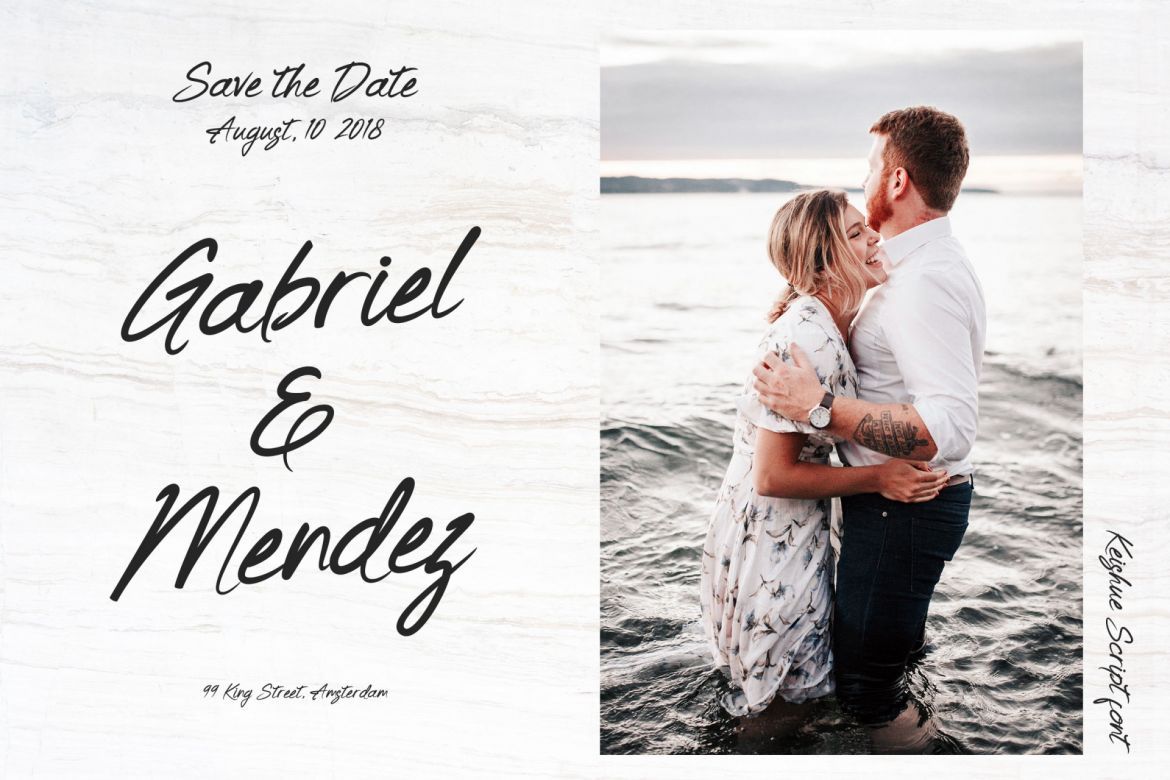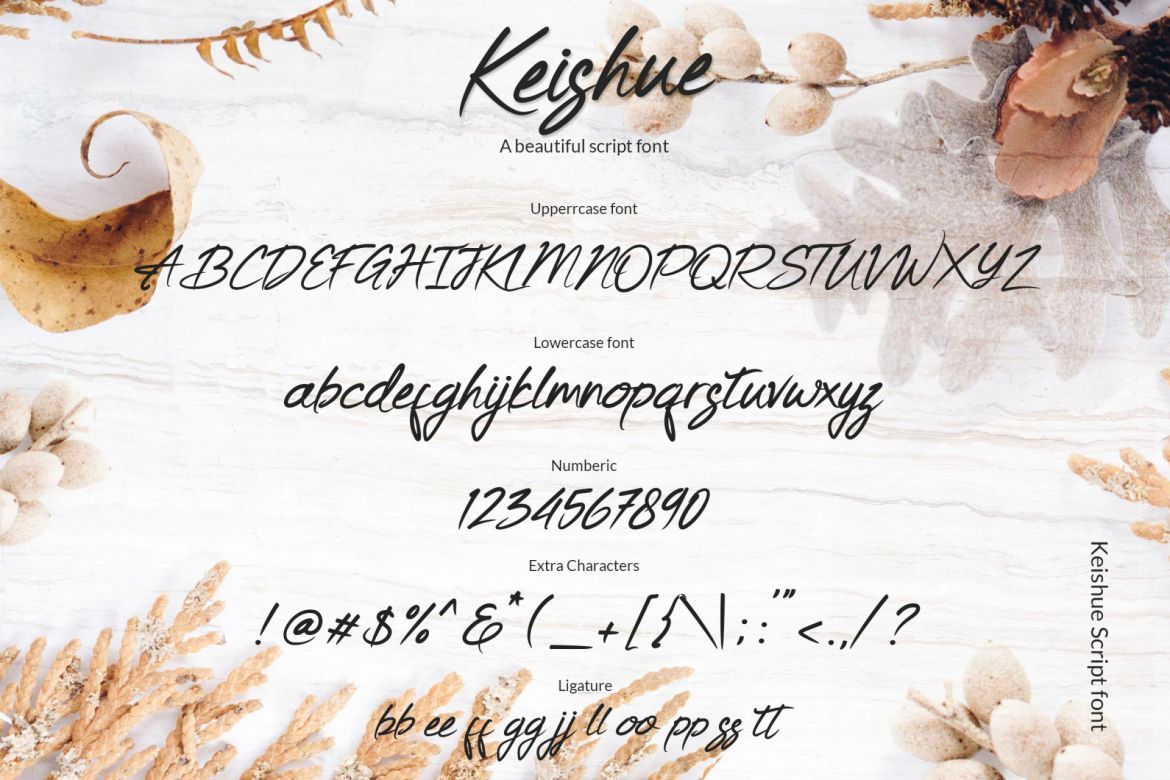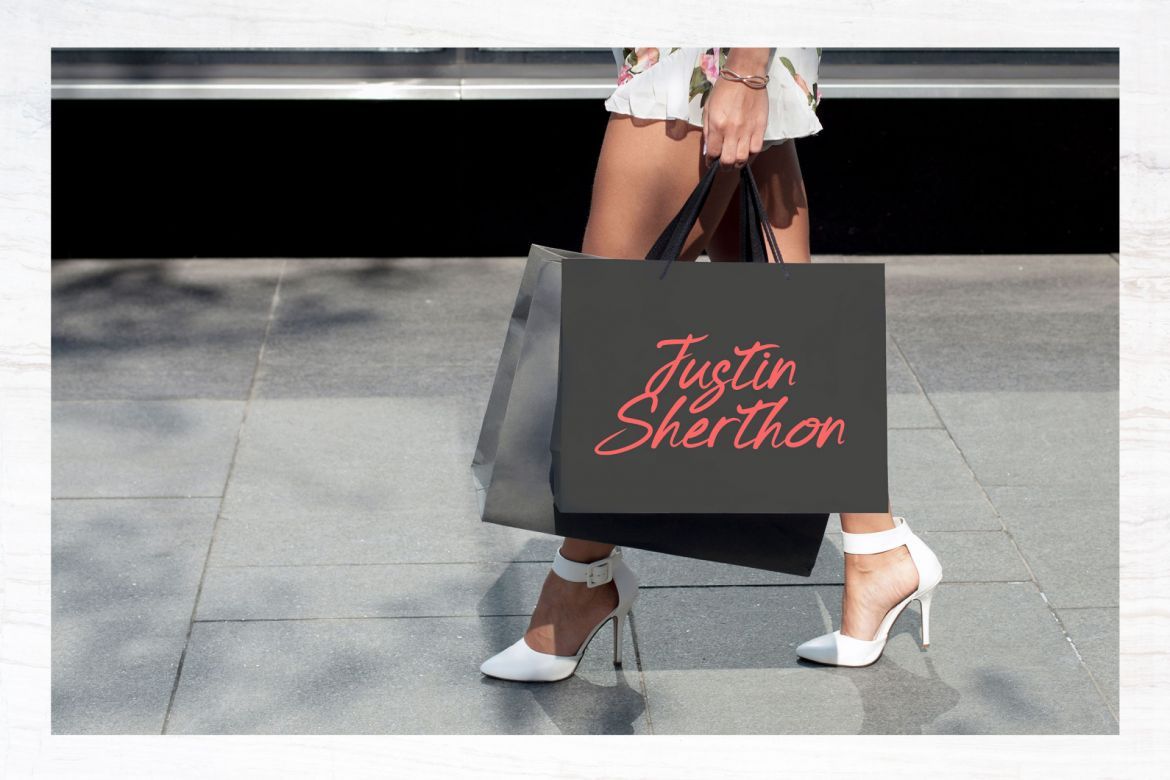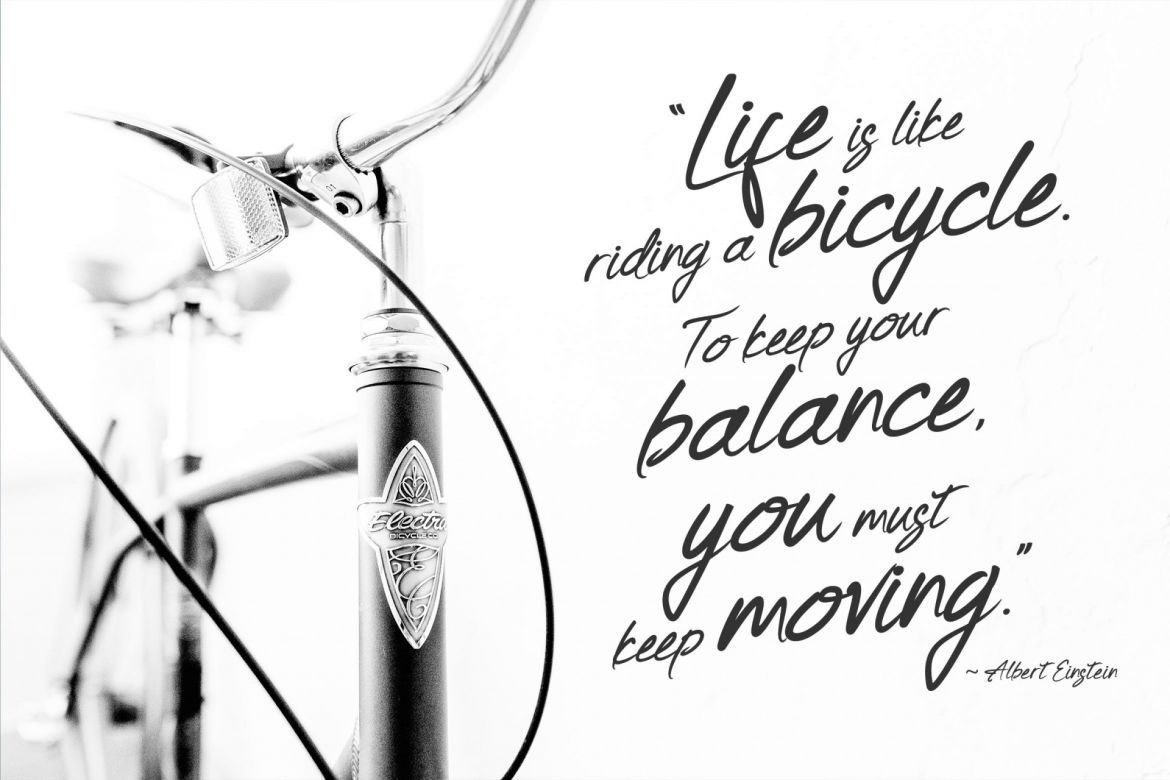
Keishue - Script Font
Introducing – Keishue is a modern handwritten typeface, beautiful and luxurious. This elegant and beautiful font is stylish and versatile so you can use in a plethora of designs in both digital and print applications.